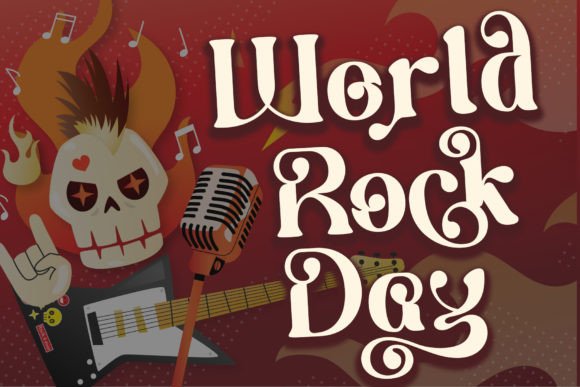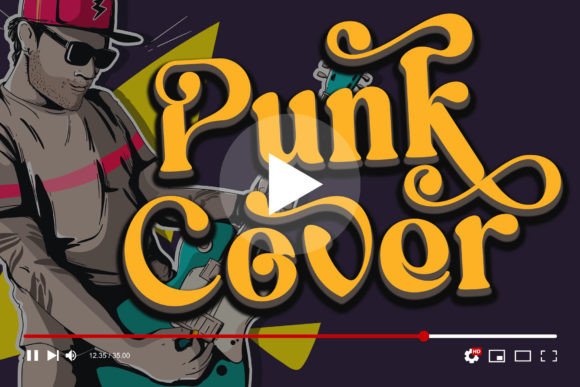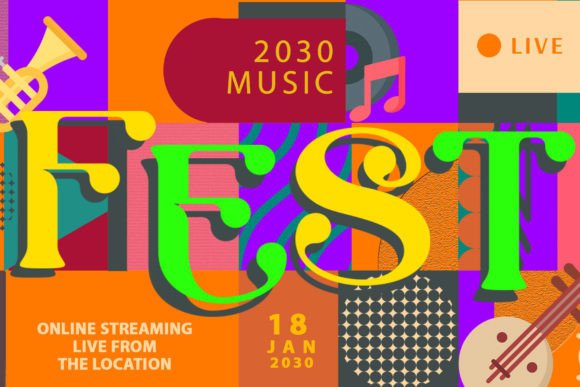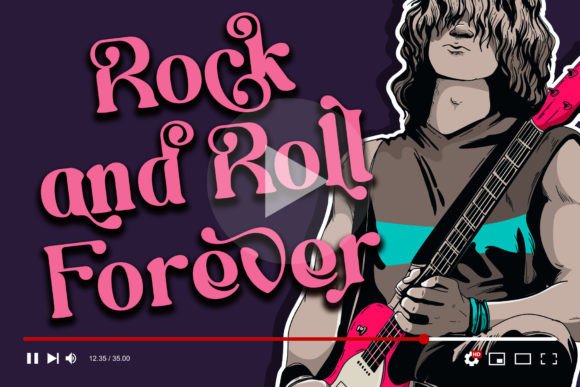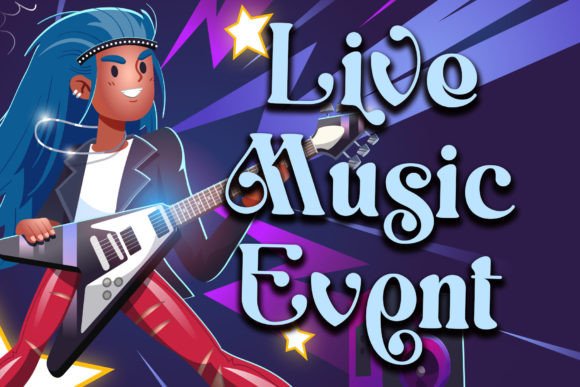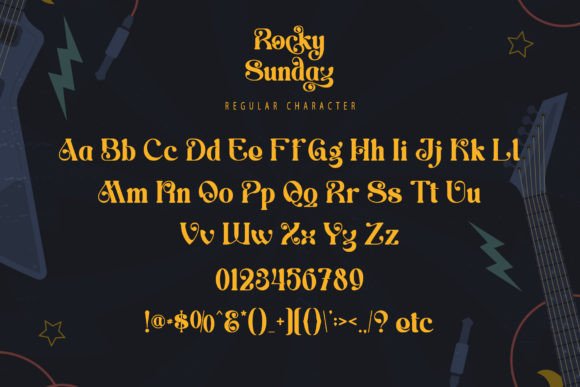
Introduction to Rocky Sunday Font
Introducing Rocky Sunday, a serif font that seamlessly blends bold sophistication with unique character forms.
Perfect for enhancing various design projects, from eye-catching product packaging to refined branding, this fontโs PUA encoding ensures easy access to a wide range of distinctive glyphs and swashes, promising exceptional results for your creative endeavors Dive into the elegance of Rocky Sunday and elevate your designs with its striking presence and timeless appeal.
Key Features of Rocky Sunday Font